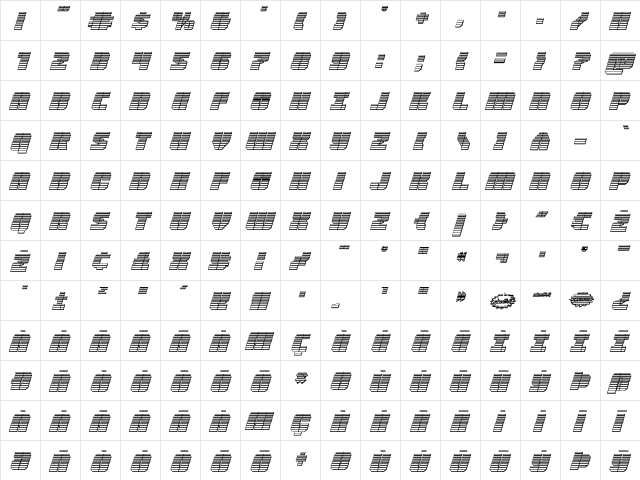
Warp Thruster Chrome Italic Italic
Design Context for Warp Thruster Chrome Italic Typeface
Warp Thruster Chrome Italic is a composed and adaptable typeface that performs quietly and consistently across a wide range of design contexts. The dynamic lean of this cut emphasises speed and emphasis in any layout.
Pro Tip: Try Warp Thruster Chrome Italic for annotation and caption copy alongside an upright companion — the contrast in angle creates a dynamic but ordered typographic system.